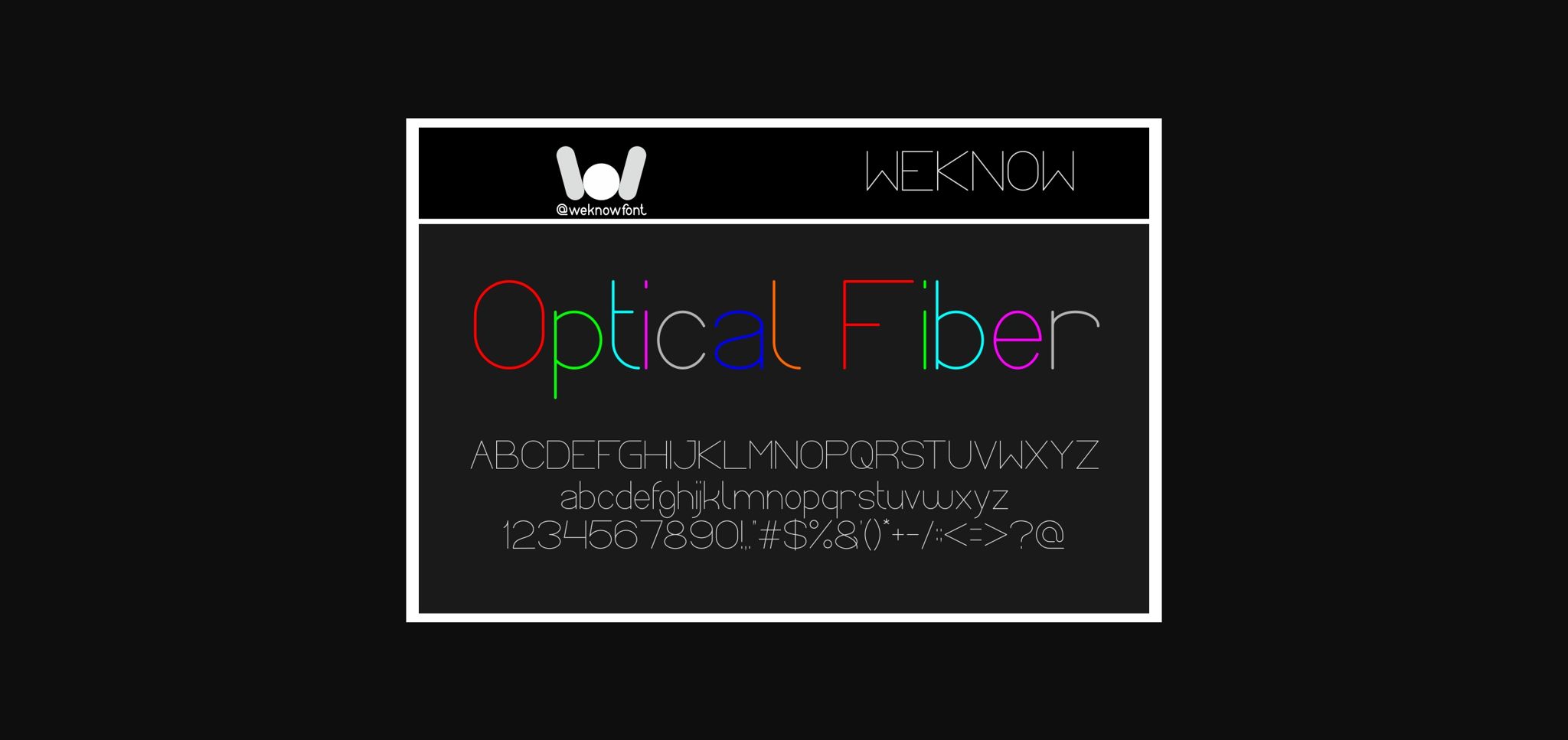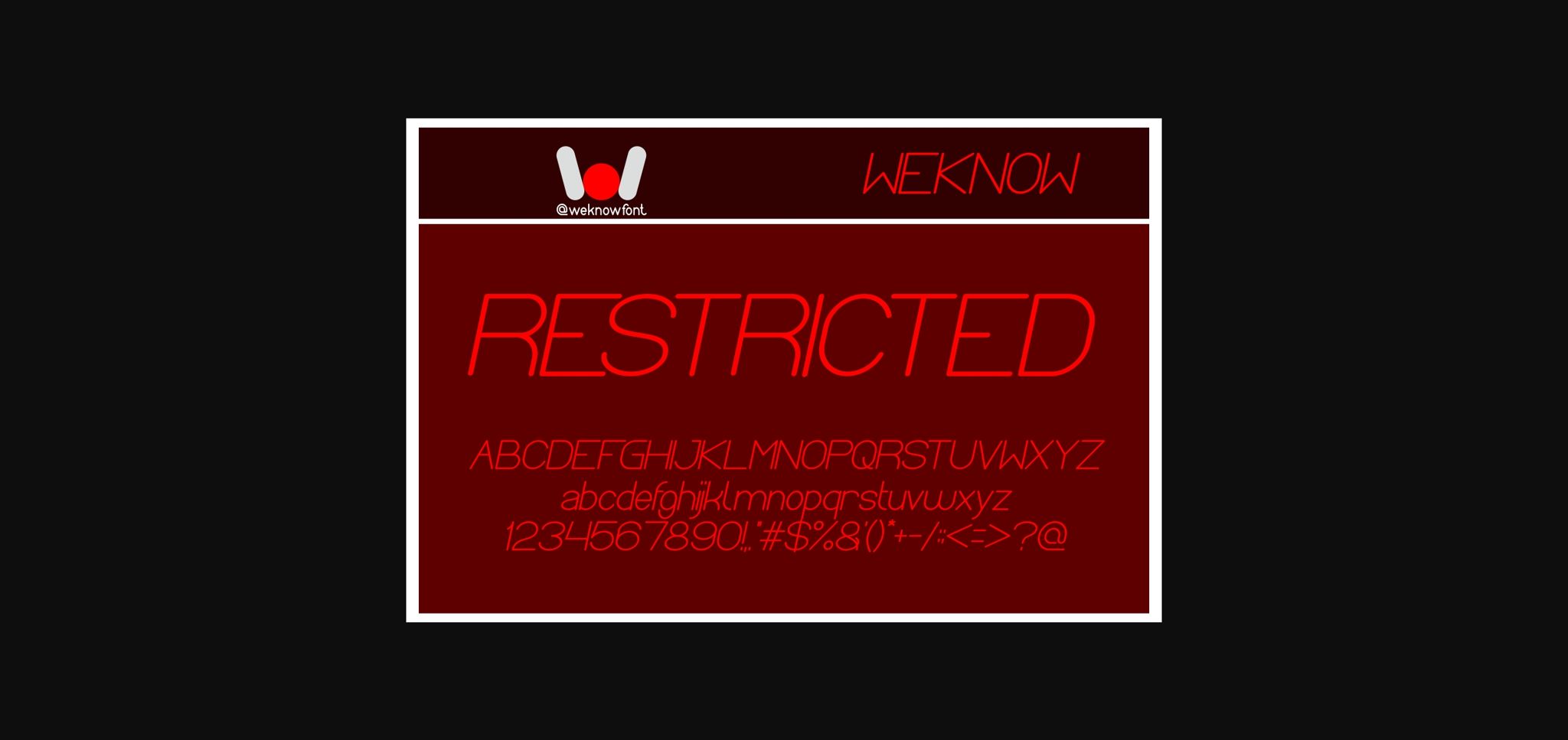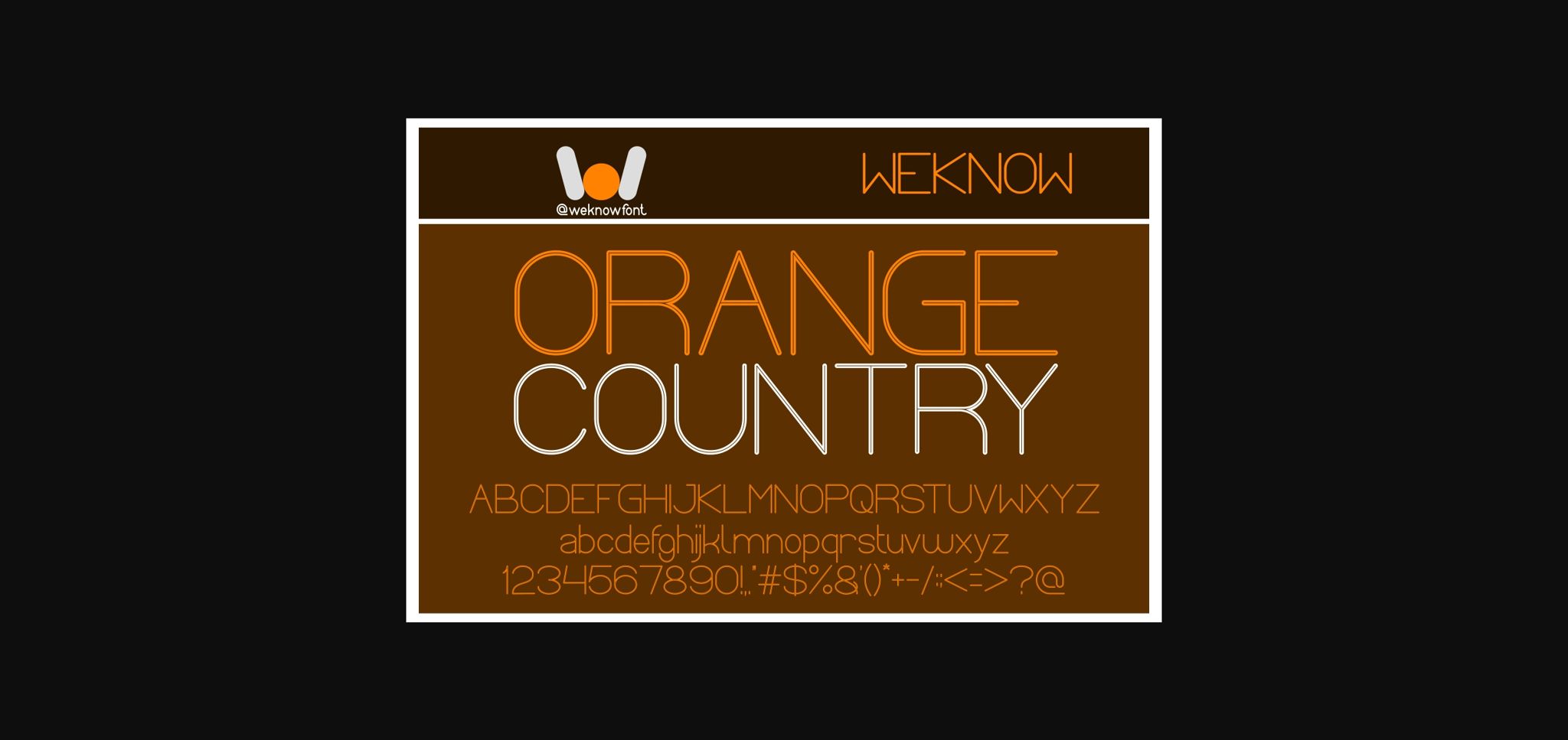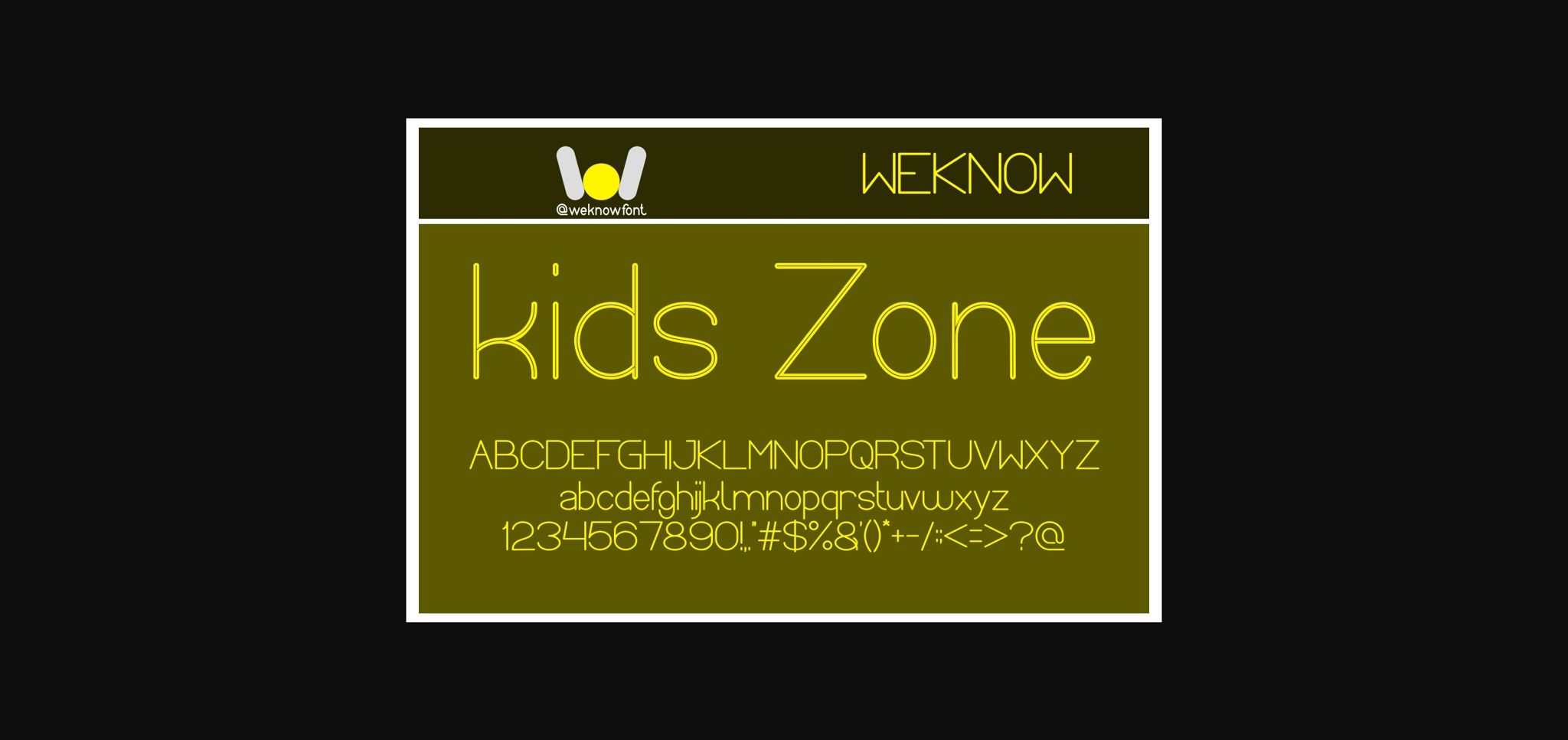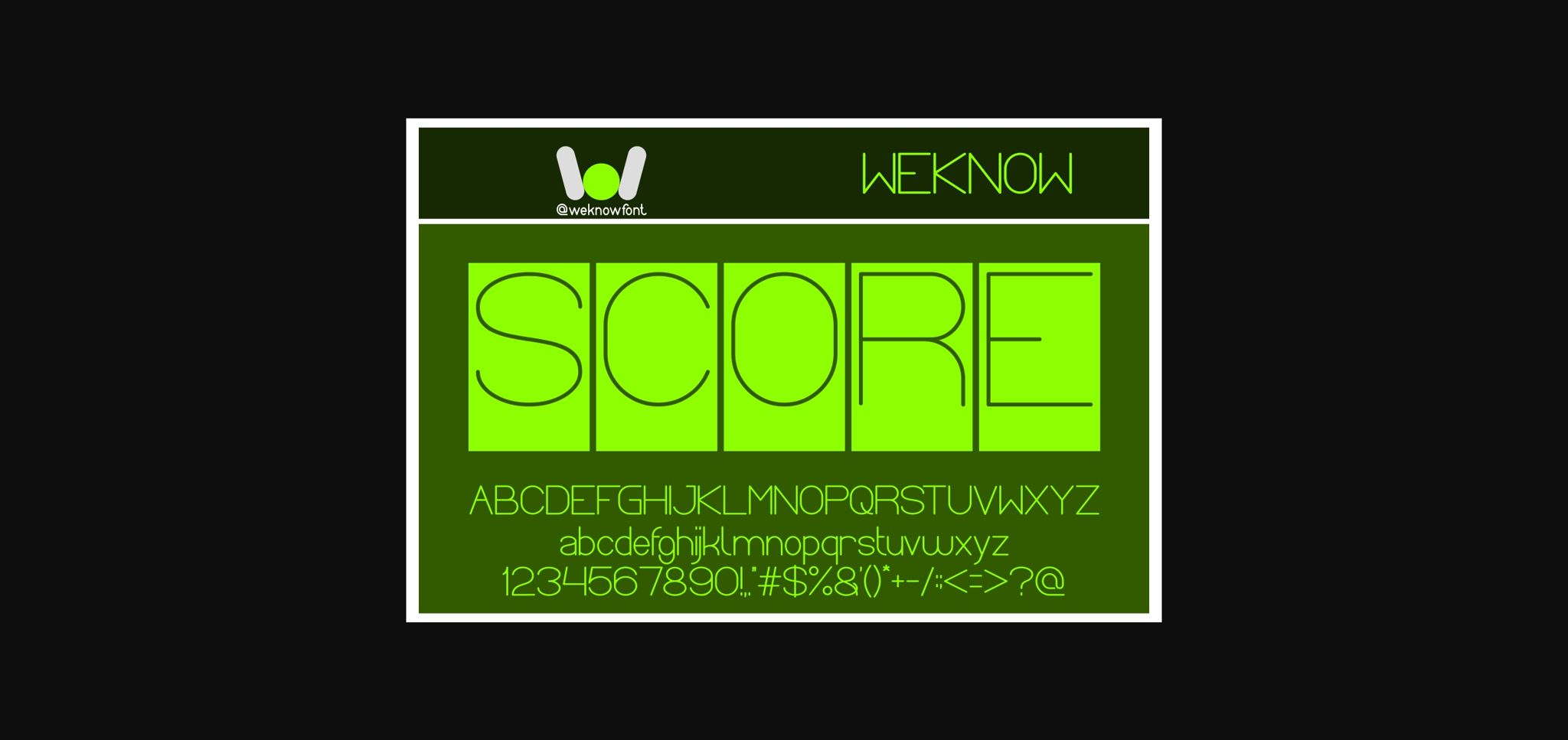
HomeSans Serif FontsOptical Fiber Font Sans Serif Fonts Optical Fiber Font FacebookXPinterestWhatsApp 1 of 7 ... Optical Fiber Font Poster 2... Optical Fiber Font Poster 3... Optical Fiber Font Poster 4... Optical Fiber Font Poster 5... Optical Fiber Font Poster 6... Optical Fiber Font Poster 7... About Optical Fiber Font Optical Fiber is a neat and simple lettered sans serif font. It has a clean, thin and smooth vibe and it will be a hit for any design that you want to add it to. DOWNLOAD NOW People also explored Marcopolo Font Snow Place Font Signattury Font We Jagos Font Quatry Font Jolly Sweet Font Bapakhe Font Arnprior Ghost Town Font 536 0 TagsOptical Fiber Font Previous articlePetot FontNext articleGreece Font LEAVE A REPLY Cancel reply Comment: Please enter your comment! Name:* Please enter your name here Email:* You have entered an incorrect email address! Please enter your email address here Website: Save my name, email, and website in this browser for the next time I comment. Personal Use Free Quickline Personal Use Free Read more about this font Cheque Personal Use Free Read more about this font Peachy Rose Personal Use Free Read more about this font Glosery Personal Use Free Read more about this font BLOG Fonts That Capture the Spirit of New York City New York City is more than just a place—it’s an experience, a rhythm, a visual language... Best Fonts for YouTube Videos: Make Your Thumbnails Stand Out The 10 Best Handwriting Fonts to Add Personality to Your Designs Free vs Paid Fonts: Why Investing in Premium Fonts Is Worth It